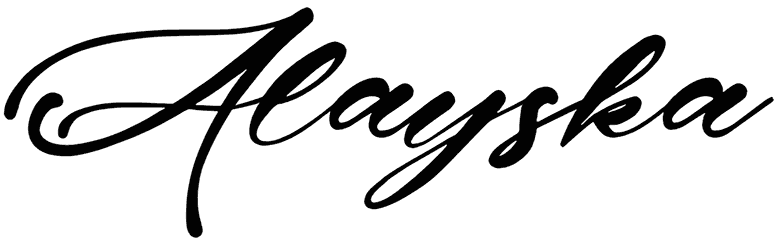
Alayska Font
The Alayska font, an invitation font, is perfect for anyone who wants to add a touch of elegance to their digital creations. Although it may be slightly unreadable, it has the potential to give off a more relaxed and informal vibe than other fonts.